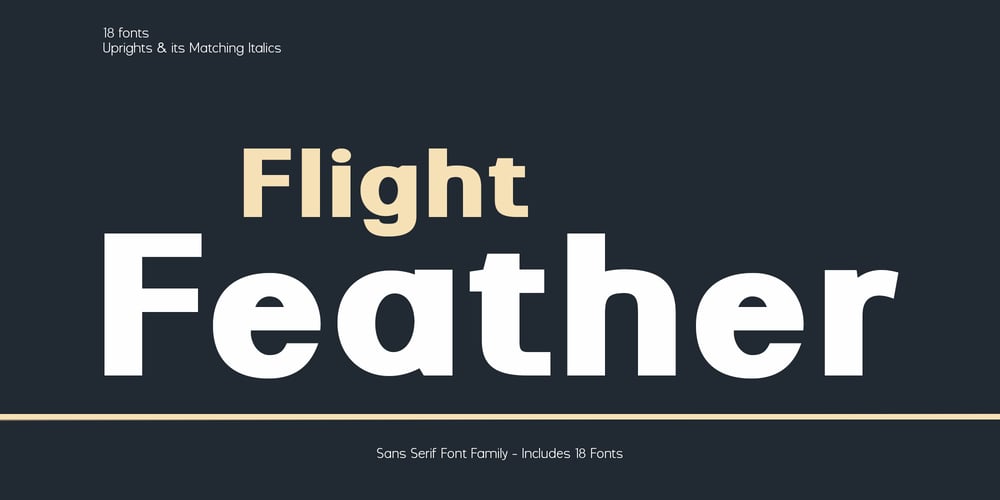
Flight Feather Font Family was designed by Muriza Moriztype and published by moriztype. Flight Feather contains 18 styles and family package options. Flight Feather is a font that has a modern and elegant design. This font has smooth and firm lines, as well as balanced and proportional letter proportions. Each letter in this font has interesting details and a beautiful appearance, making it suitable for classy and elegant designs.View of the Flight Feather font with supple and smooth lines. This font has a light and alluring impression, but still strong and firm, so it is suitable for graphic designs, posters or brochures that require an elegant and professional impression.The combination of thin and thick lines in the Flight Feather font provides an interesting visual effect and helps make words or sentences stand out and impress. With its uniqueness, the Flight Feather font can be the right choice to strengthen the message you want to convey in visual design.